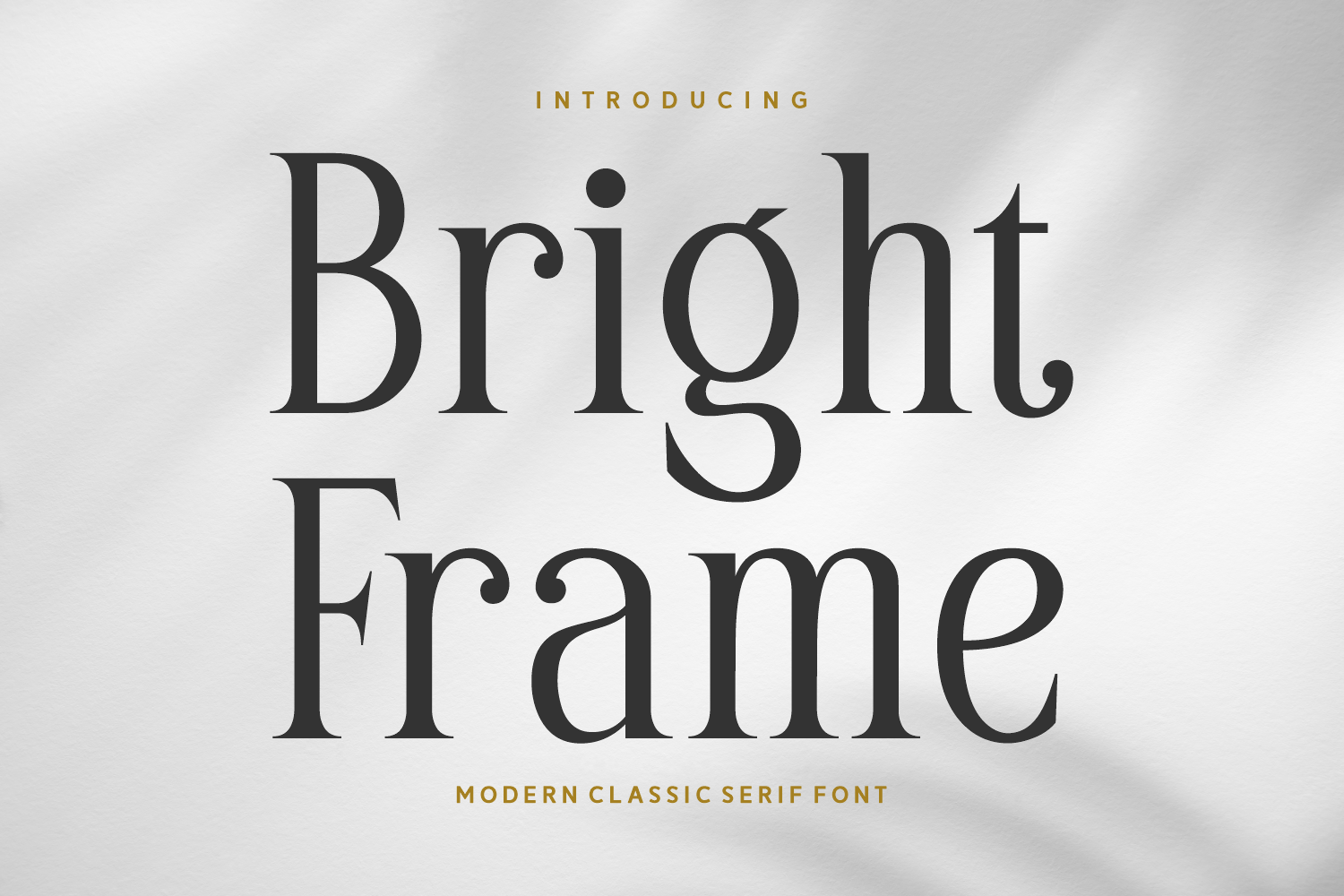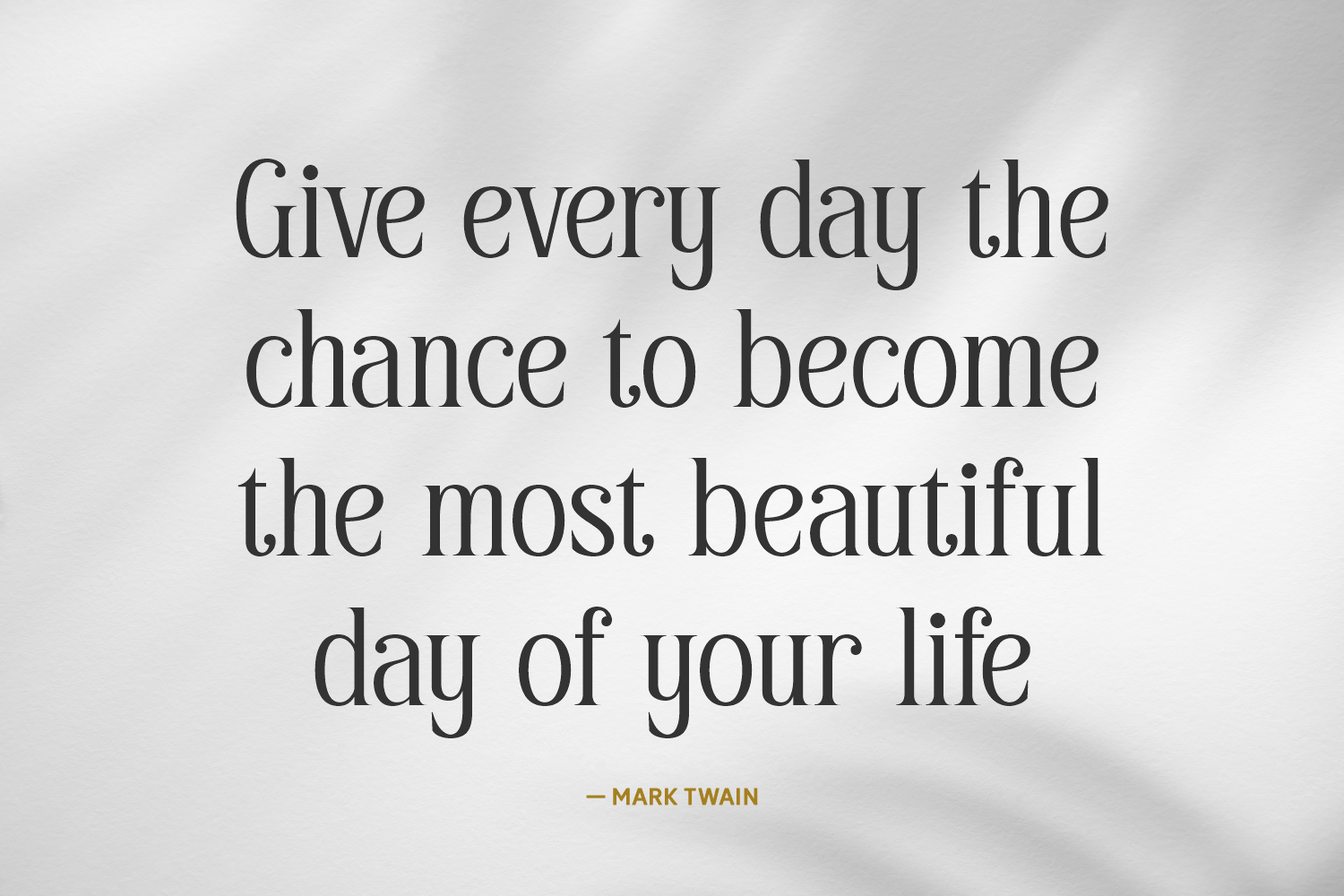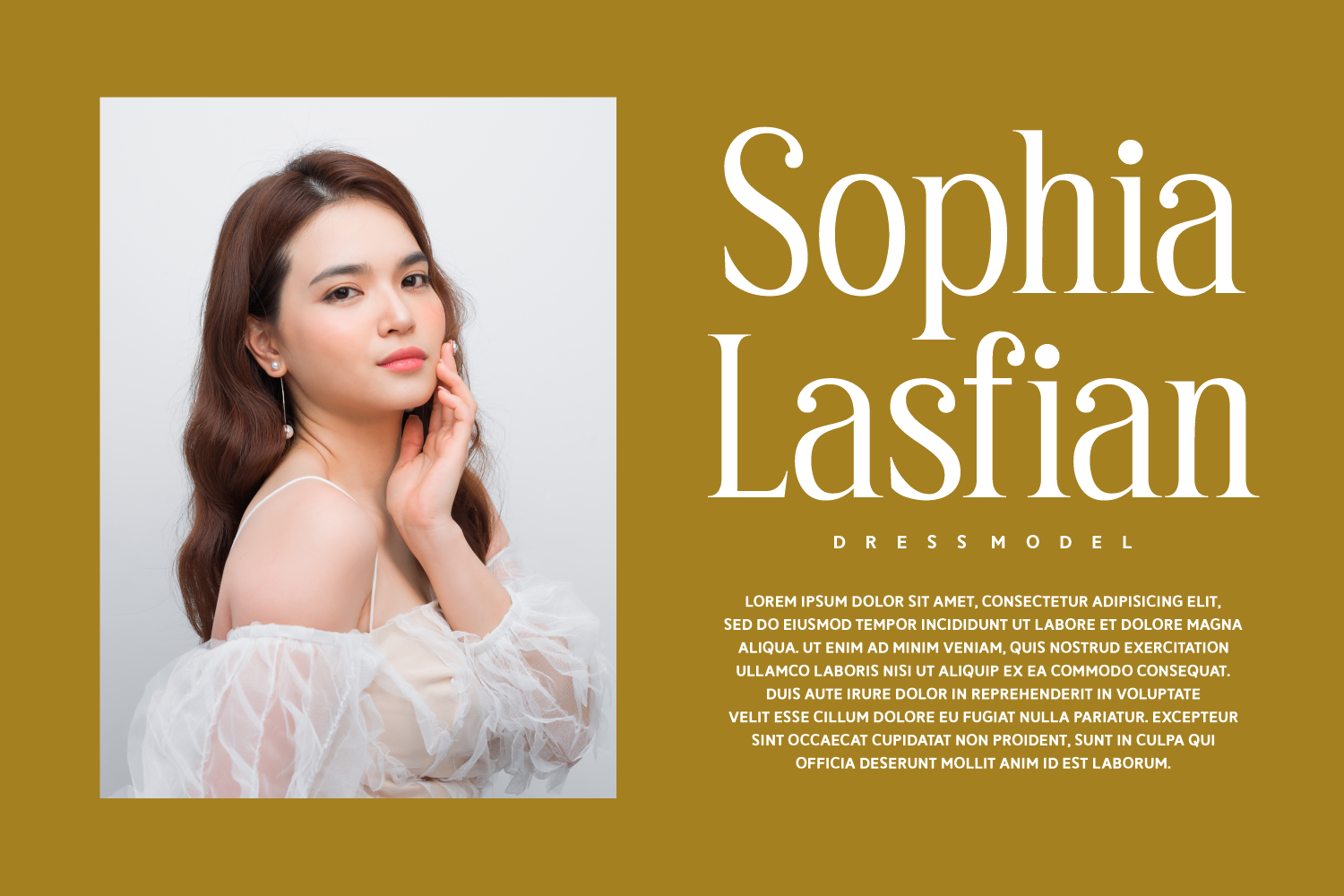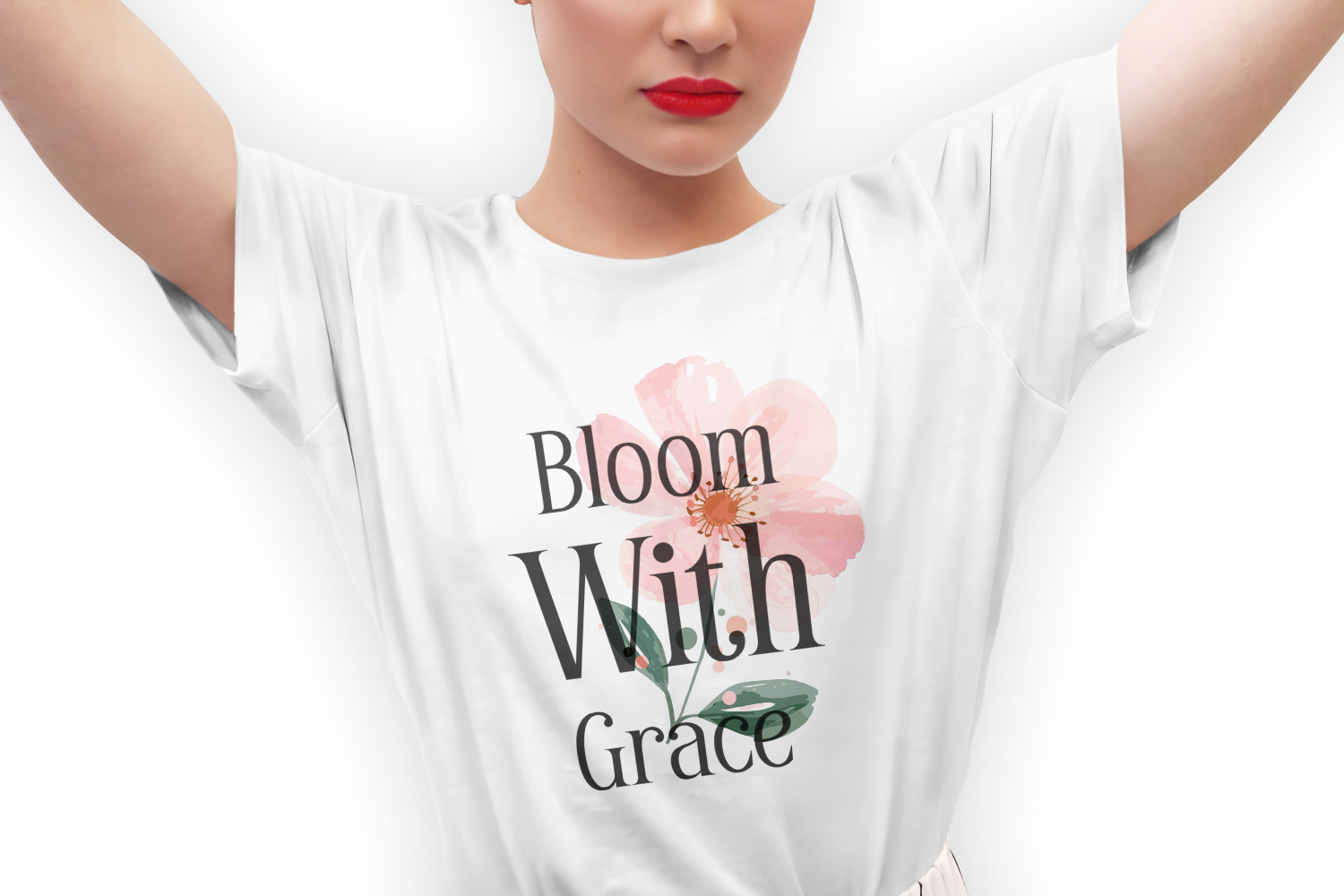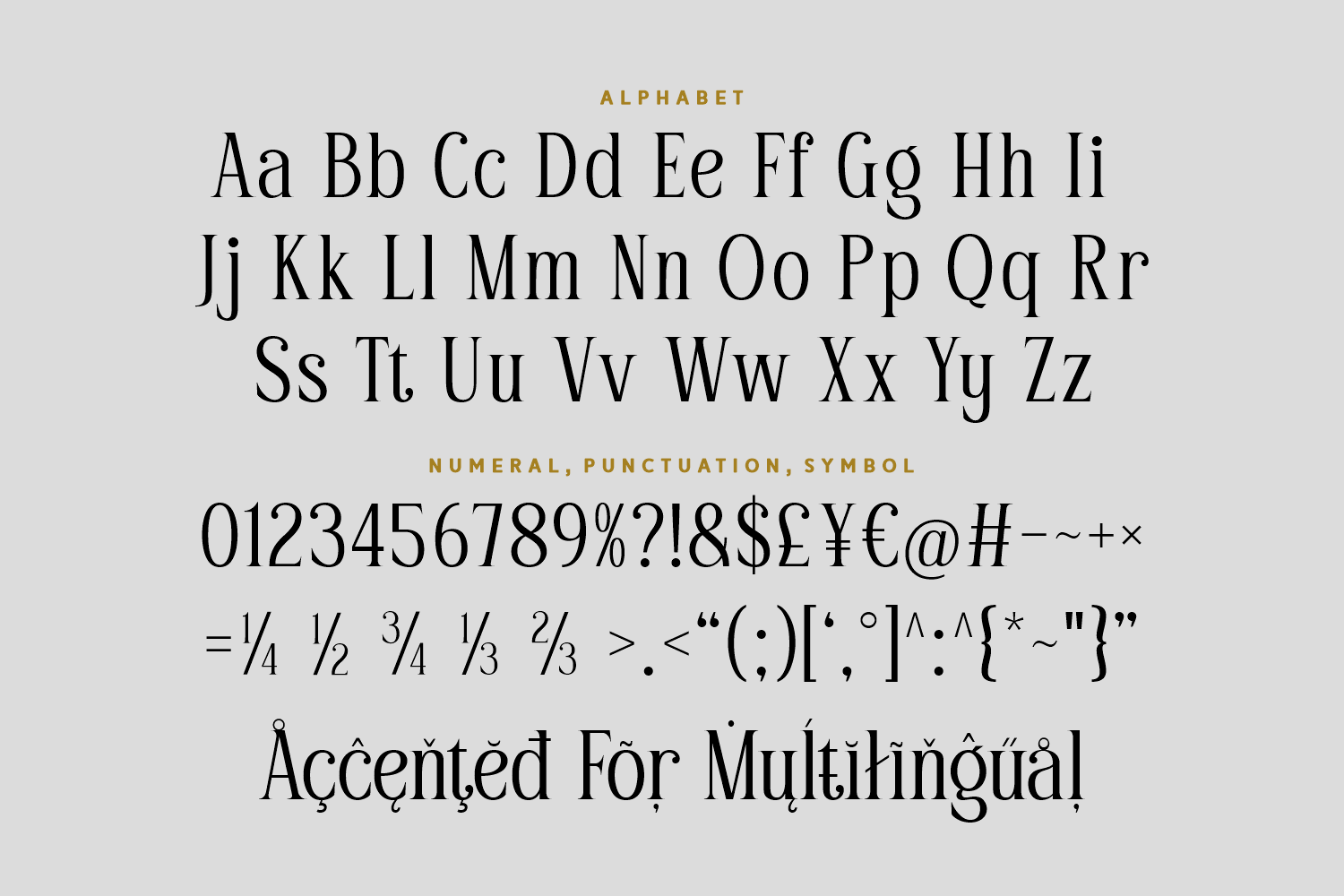
Bright Frame is a refined and elegant modern classic serif font that radiates timeless sophistication. With its tall x-height and smooth curves, it’s ideal for luxury branding, magazine layouts, and high-end editorial design.